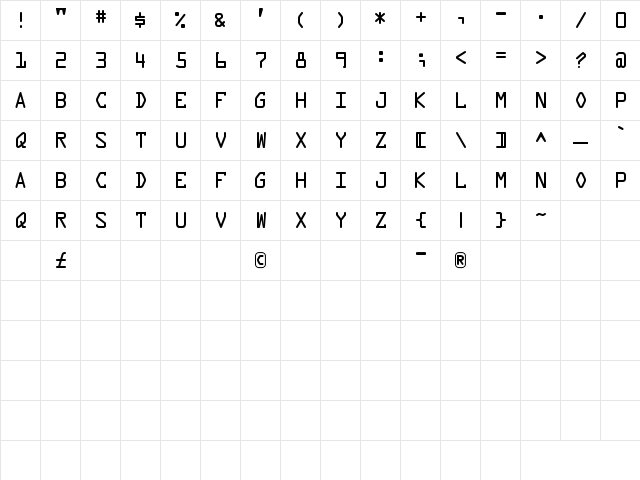
Data Control Latin Font Preview
Data Control Latin
Design Context for Data Control Typeface
Data Control offers clean, dependable letterforms without strong stylistic allegiance, making it a practical choice for designers who need flexibility.